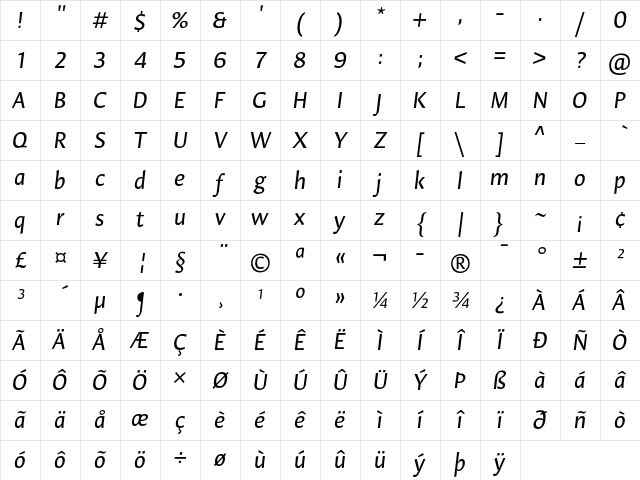
Hildegard LT Std Italic
Designer: Jan Sonntag
Design Context for Hildegard LT Std
Hildegard LT Std is a composed and adaptable typeface that performs quietly and consistently across a wide range of design contexts. The slanted form adds forward momentum and visual energy. Its slender proportions lend an understated elegance to any composition.
Pro Tip: Use Hildegard LT Std for emphasis, pull quotes, and subheadings where its slanted energy can add rhythm to the layout.